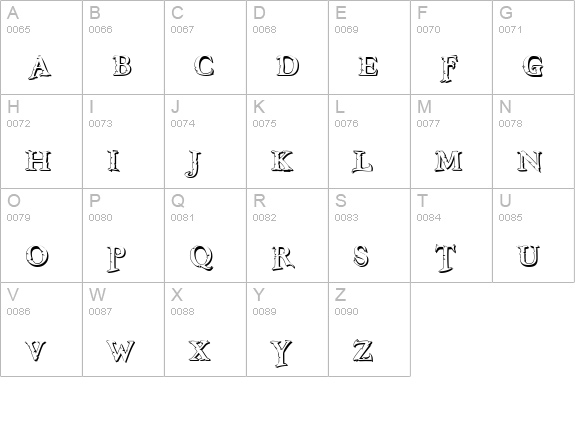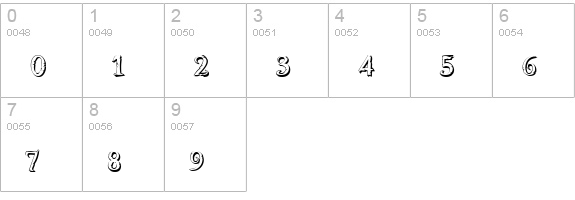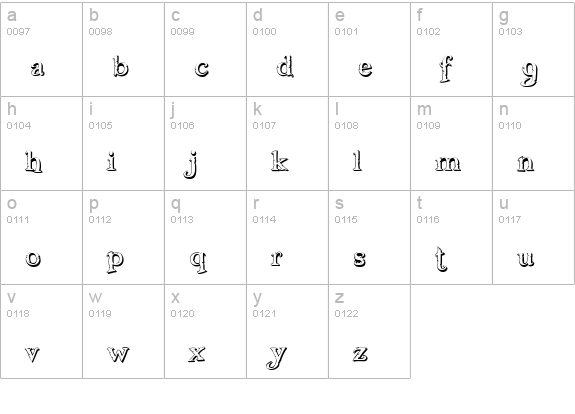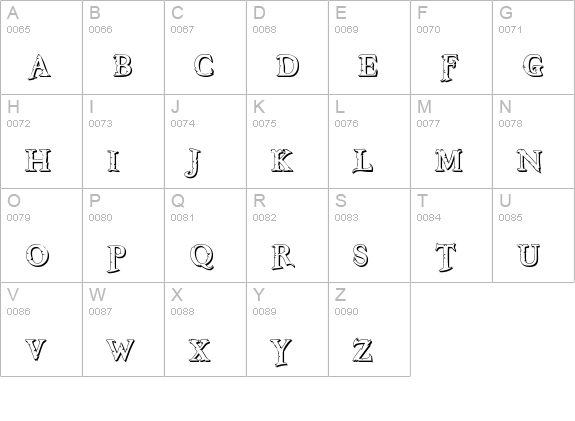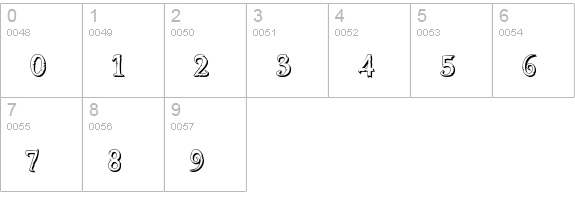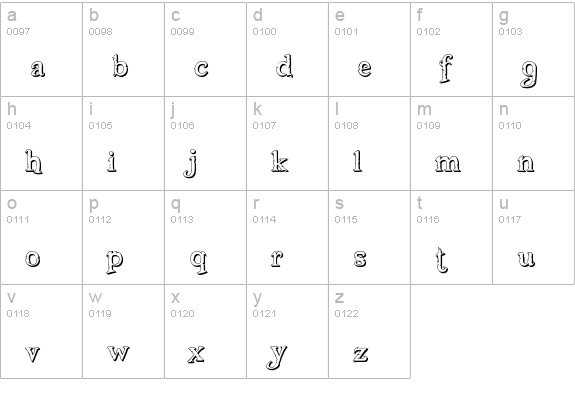
Freebooter Shadow Font Details
Introducing Freebooter Shadow font, a unique and captivating typeface that exudes elegance and sophistication. This font features intricate details and stylish curves that set it apart from the rest. The Freebooter Shadow font is perfect for adding a touch of luxury and flair to your design projects. What makes this font even more appealing is that it is completely free to download at FontsMarket.com. Yes, you read that right - you can get your hands on this stunning font without spending a dime. Whether you're working on a branding project, a poster design, or anything in between, the Freebooter Shadow font is sure to make a statement and leave a lasting impression. Don't miss out on the opportunity to elevate your designs with this exquisite font. Download Freebooter Shadow now and unleash your creativity like never before!